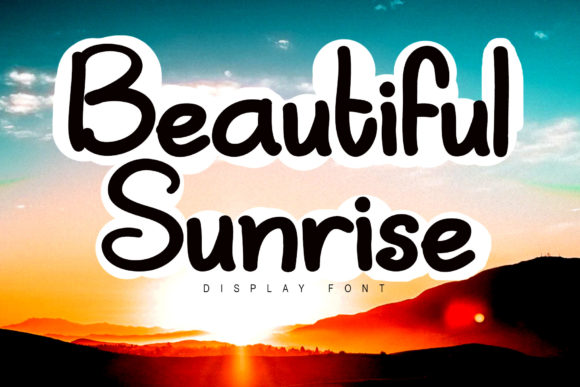
Beautiful Sunrise Font: Elevate Your Designs with a Stunning Display Font
The Beautiful Sunrise Font is a display font that has captured the hearts of designers and artists alike with its incredibly versatile style. This font is perfect for creating spectacular designs that require a simple yet fun touch. In this article, we’ll dive into the world of Beautiful Sunrise Font and explore its features, uses, and benefits.
Key Features of Beautiful Sunrise Font
- Versatile Style: Beautiful Sunrise Font boasts an incredibly versatile style that can be used in a wide range of designs, from wedding invitations to business cards.
- Display Font: As a display font, Beautiful Sunrise is designed to make a statement and grab attention.
- Simple and Fun: This font adds a simple yet fun touch to any design, making it perfect for quotes, greeting cards, and more.
10 Creative Ways to Use Beautiful Sunrise Font
- Wedding Invitations: Add a touch of elegance and romance to your wedding invitations with Beautiful Sunrise Font.
- Thank You Cards: Express your gratitude with stylish and heartfelt thank you cards featuring this beautiful font.
- Quotes: Make your quotes stand out with the Beautiful Sunrise Font, perfect for social media posts, blogs, and more.
- Greeting Cards: Create stunning greeting cards for birthdays, holidays, and special occasions with this versatile font.
- Logos: Use Beautiful Sunrise Font to create unique and memorable logos for your business or brand.
- Business Cards: Elevate your business cards with a professional yet stylish touch using this display font.
- Social Media Graphics: Add a pop of personality to your social media graphics, such as Facebook posts, Instagram stories, and Twitter headers.
- Brochures: Make your brochures stand out with the Beautiful Sunrise Font, perfect for highlighting services, products, or company information.
- Posters: Create eye-catching posters for events, promotions, or advertisements using this stunning display font.
- Branding Materials: Use Beautiful Sunrise Font consistently across your branding materials to establish a strong visual identity.
The Benefits of Using Beautiful Sunrise Font
- Readability: The font’s clear and clean design ensures excellent readability, making it perfect for a wide range of applications.
- Uniqueness: Stand out from the crowd with the Beautiful Sunrise Font’s unique and stylish design.
In conclusion, the Beautiful Sunrise Font is a versatile and stunning display font that can elevate your designs to the next level. With its simple yet fun style, this font is perfect for a wide range of applications, from wedding invitations to business cards. By following the tips and tricks outlined in this article, you can get the most out of Beautiful Sunrise Font and create spectacular designs that leave a lasting impression.